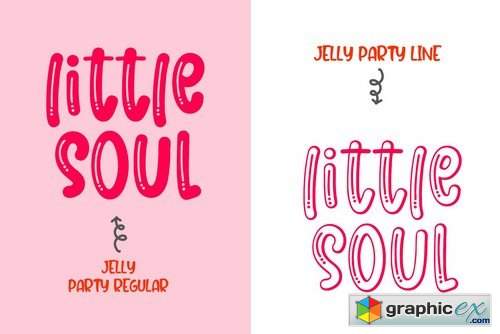
Jelly Party
JELLY PARTY, Playful font duo Discover your fantastic design ideas using this fun font collection! Playful and unique, yet cute and versatile for any purpose. Combination of a line and regular version will gives you unlimited creative moment!